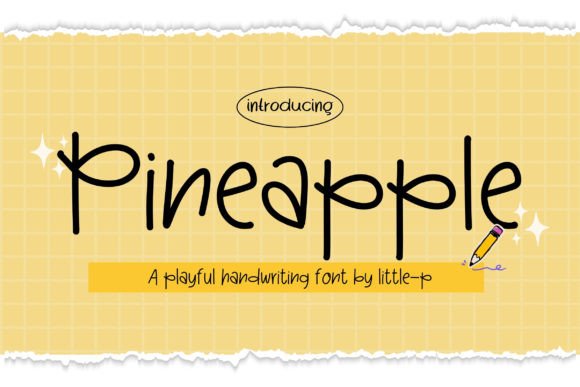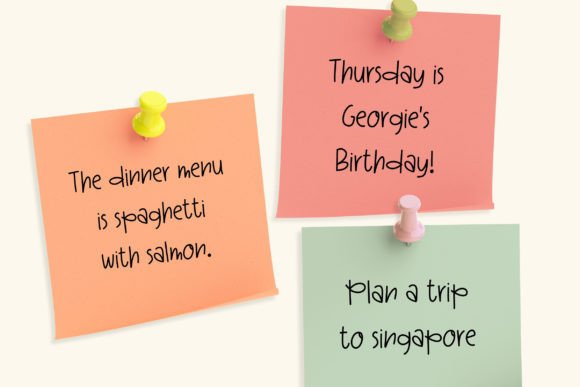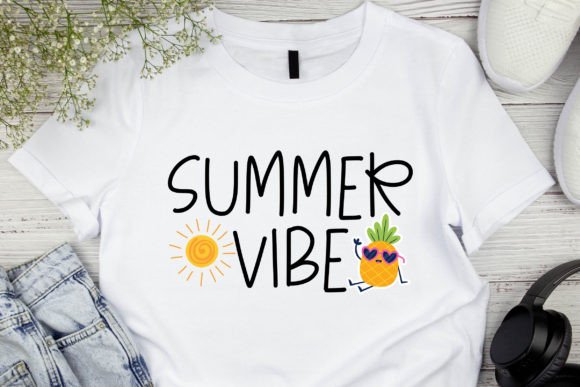
Pineapple Font: A Cute Handwritten Font for Planners & DIY Crafts
About the Pineapple Font
The Pineapple Font is here to transform your projects with its distinctive character and style. Introducing “Pineapple” a playful and quirky font that adds a touch of whimsy to your projects. With its fun handwriting style, “Pineapple” is perfect for note-taking, digital planners, journals, educational notes, Goodnotes, greeting cards, quotes, t-shirts, branding, and more. This font exudes creativity and spontaneity, making it ideal for adding a cheerful vibe to any design. Whether you’re crafting a lively greeting card or designing a quirky t-shirt, “Pineapple” is sure to bring a smile to your audience’s face with its unique and energetic charm.
Pineapple Font Usage Examples
Pineapple Font Example